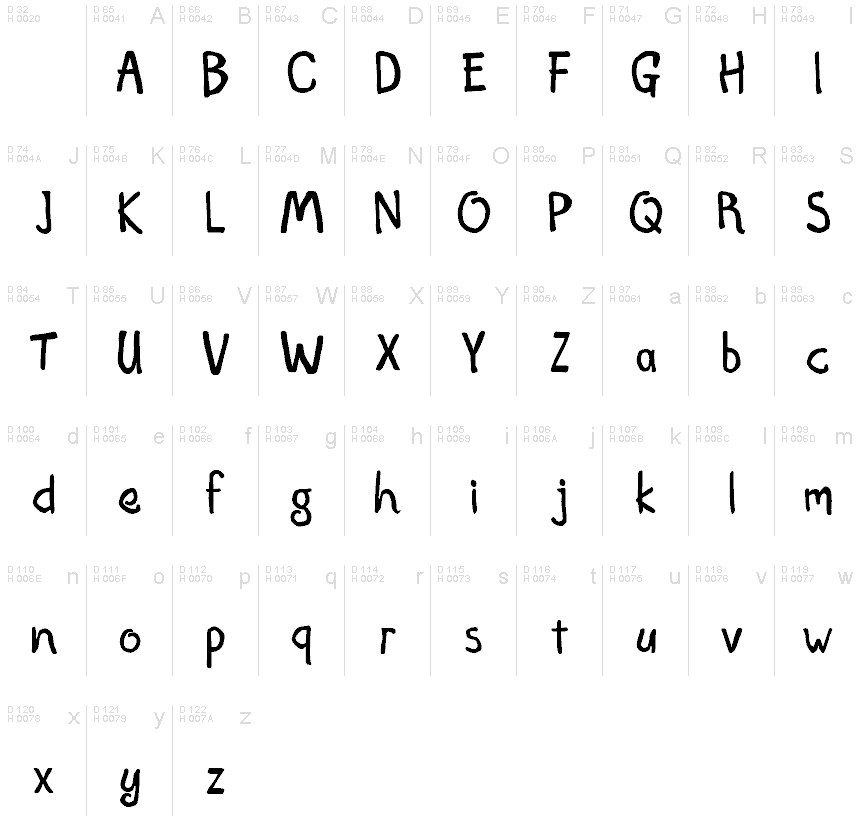
CS History Regular Demo
CS History font, designed by Craft Supply Co., is a free handwritten font with a youthful vibe and relaxed appearance. The style provides an informal look while remaining memorable for readers. The unique font combines each character in interesting styles to make reading enjoyable for everyone.
Use this font to write titles or content in novels, posters, books, advertising projects, flyers, or social media posts. Inject CS History into your branding designs and make them both attractive and professional.